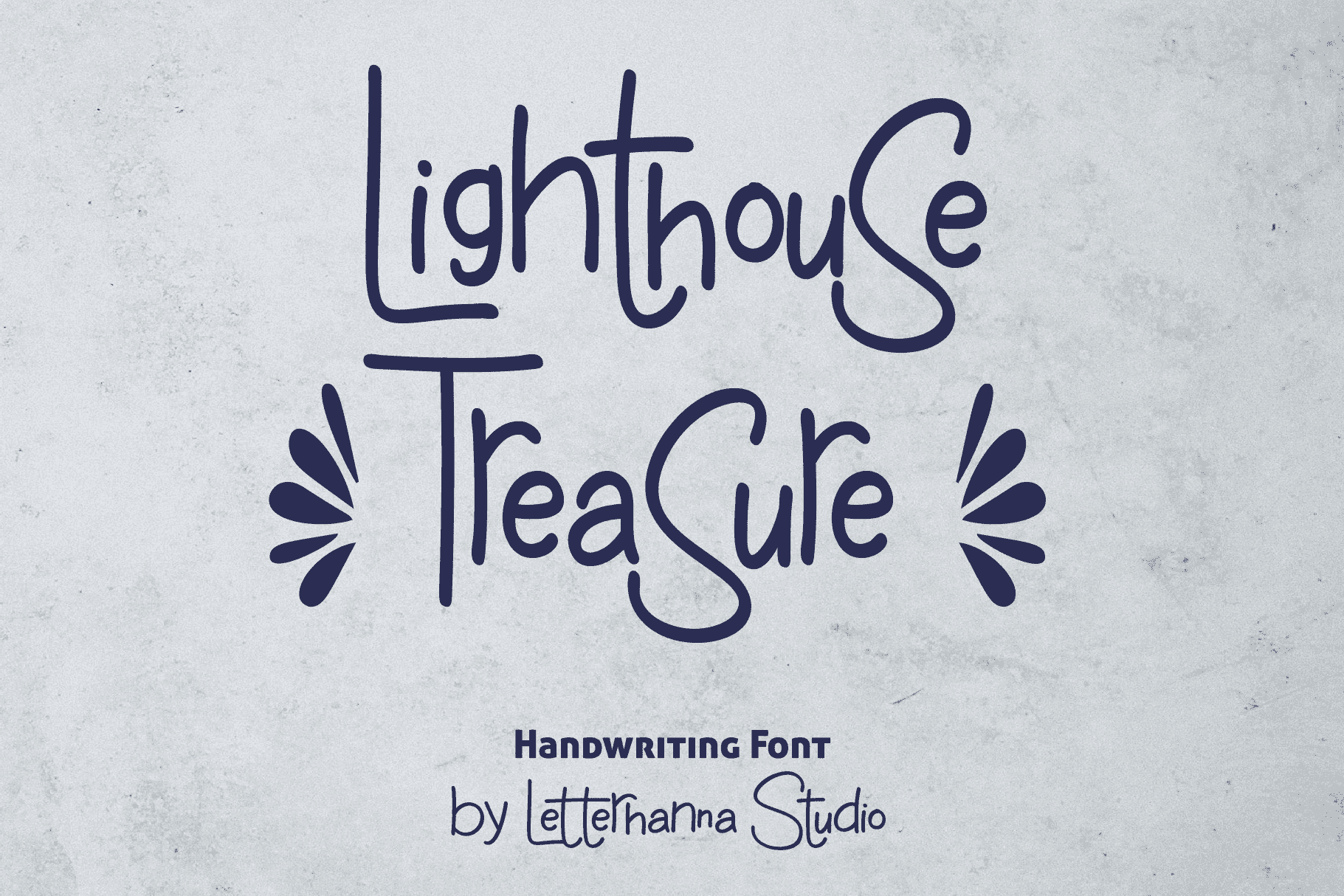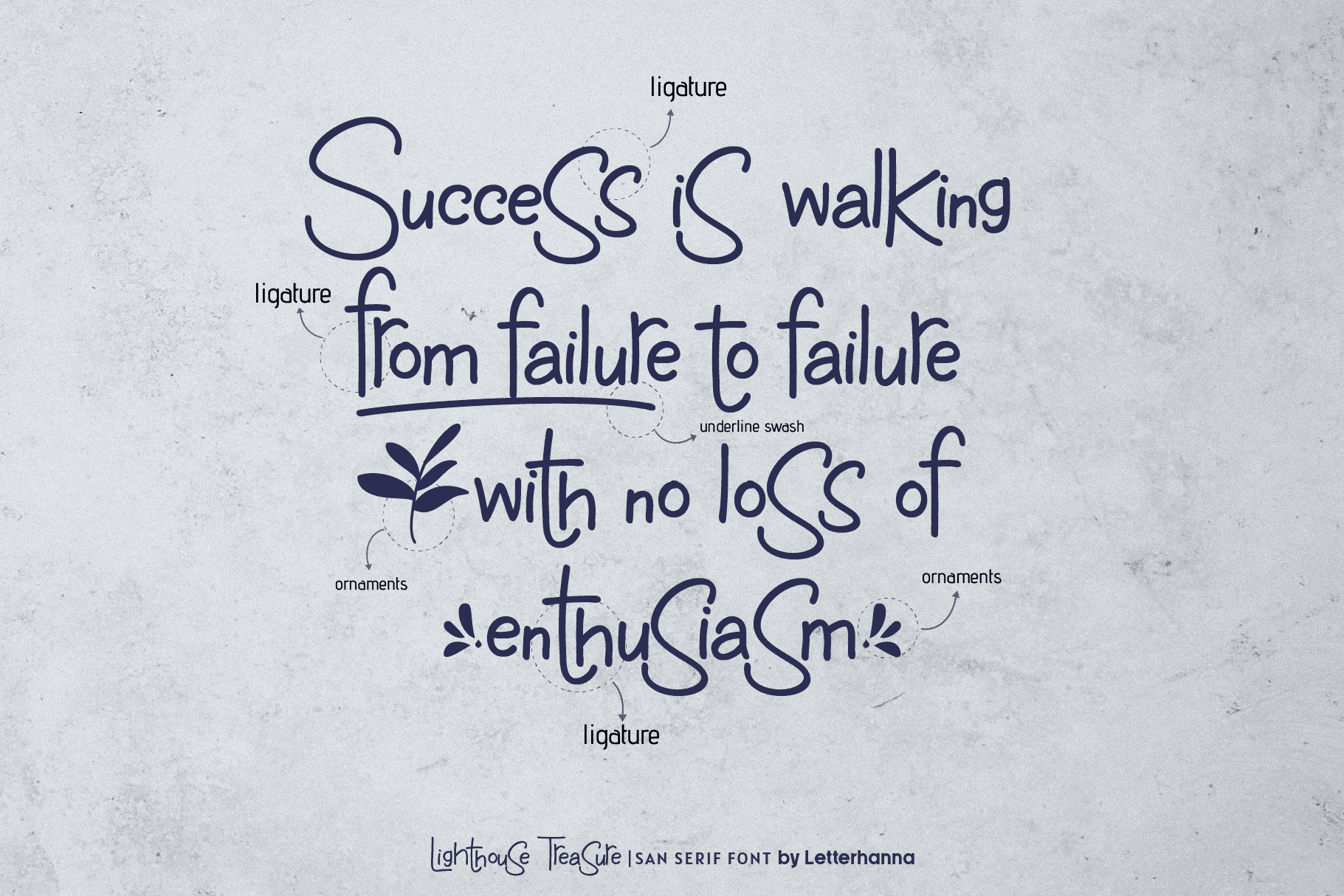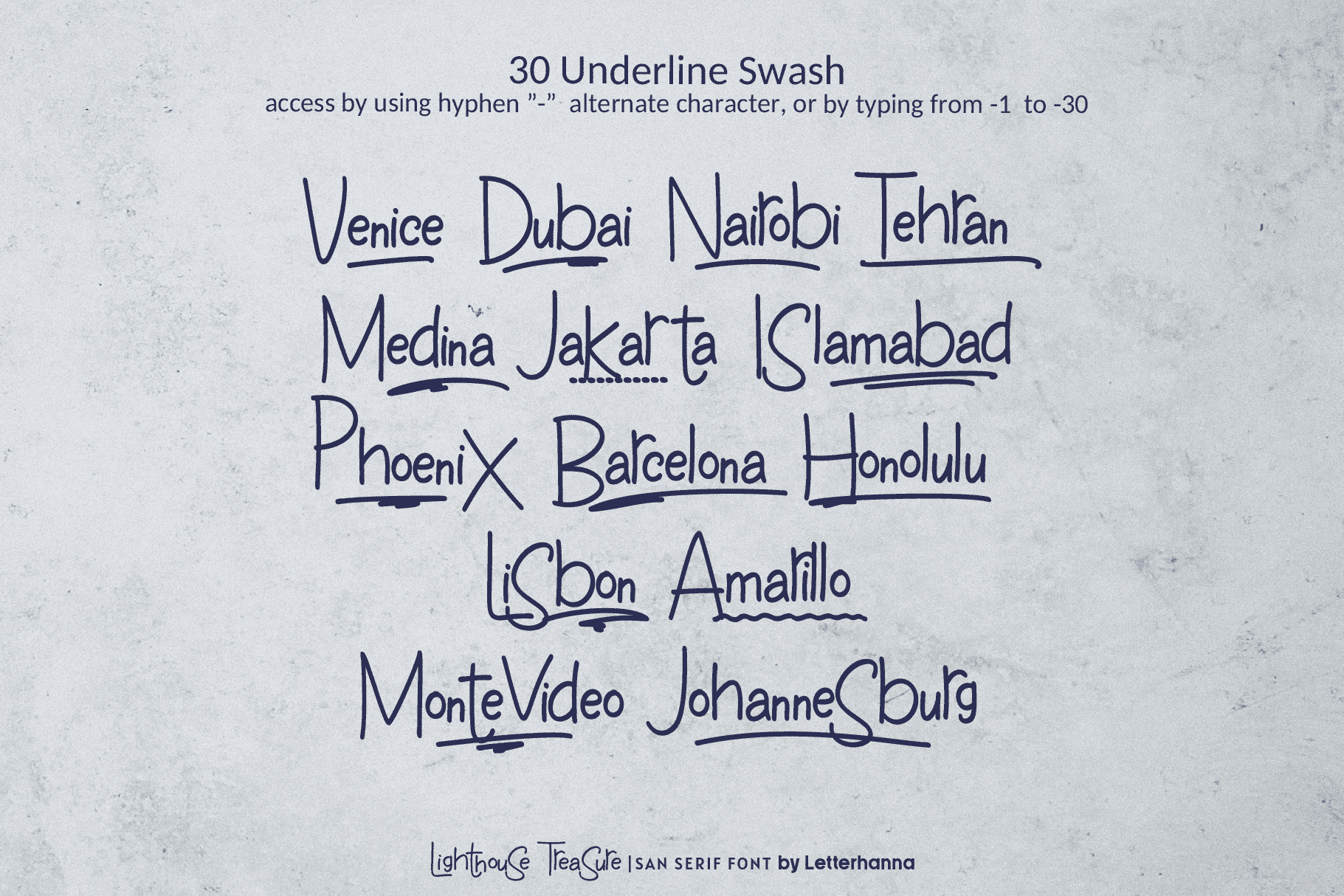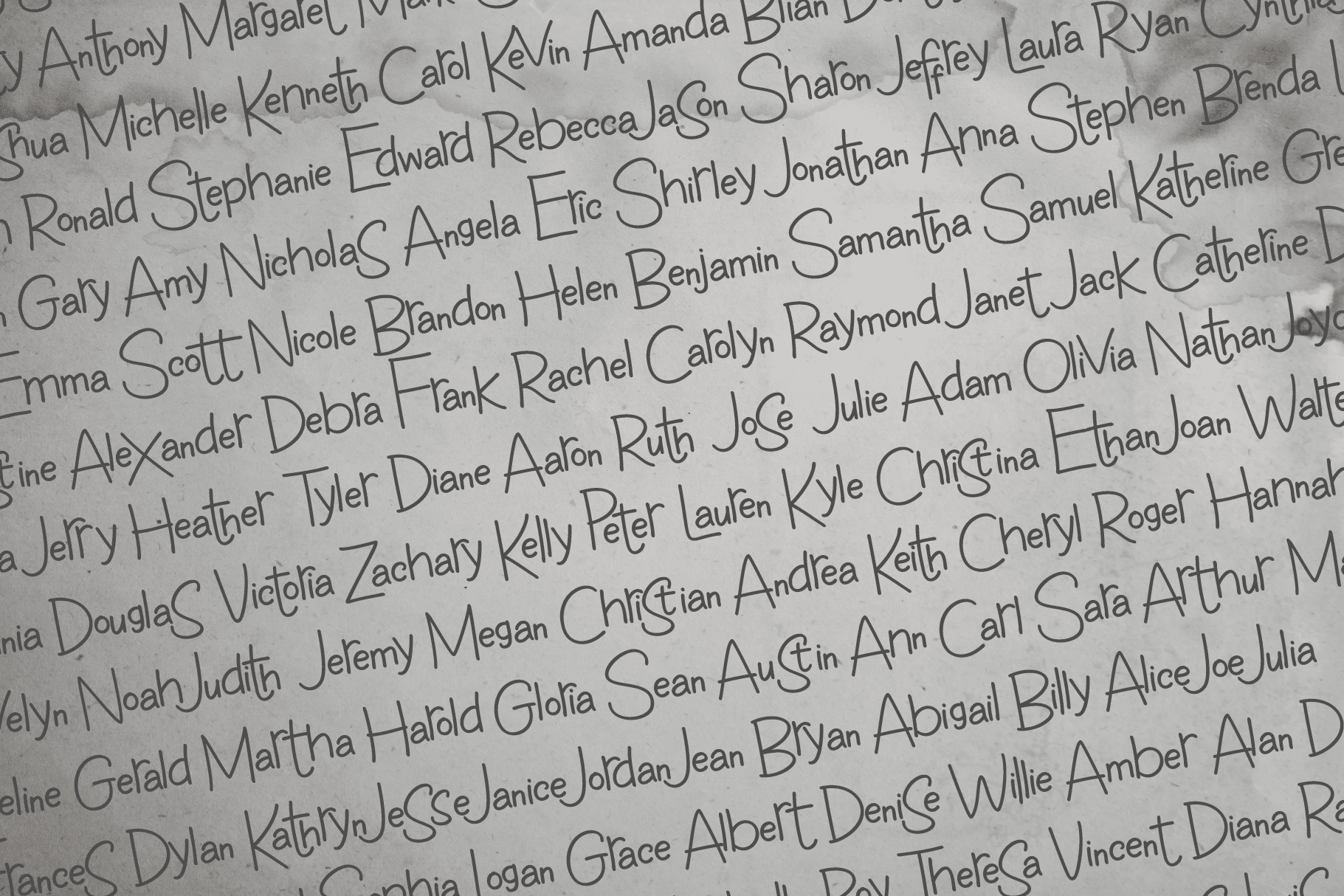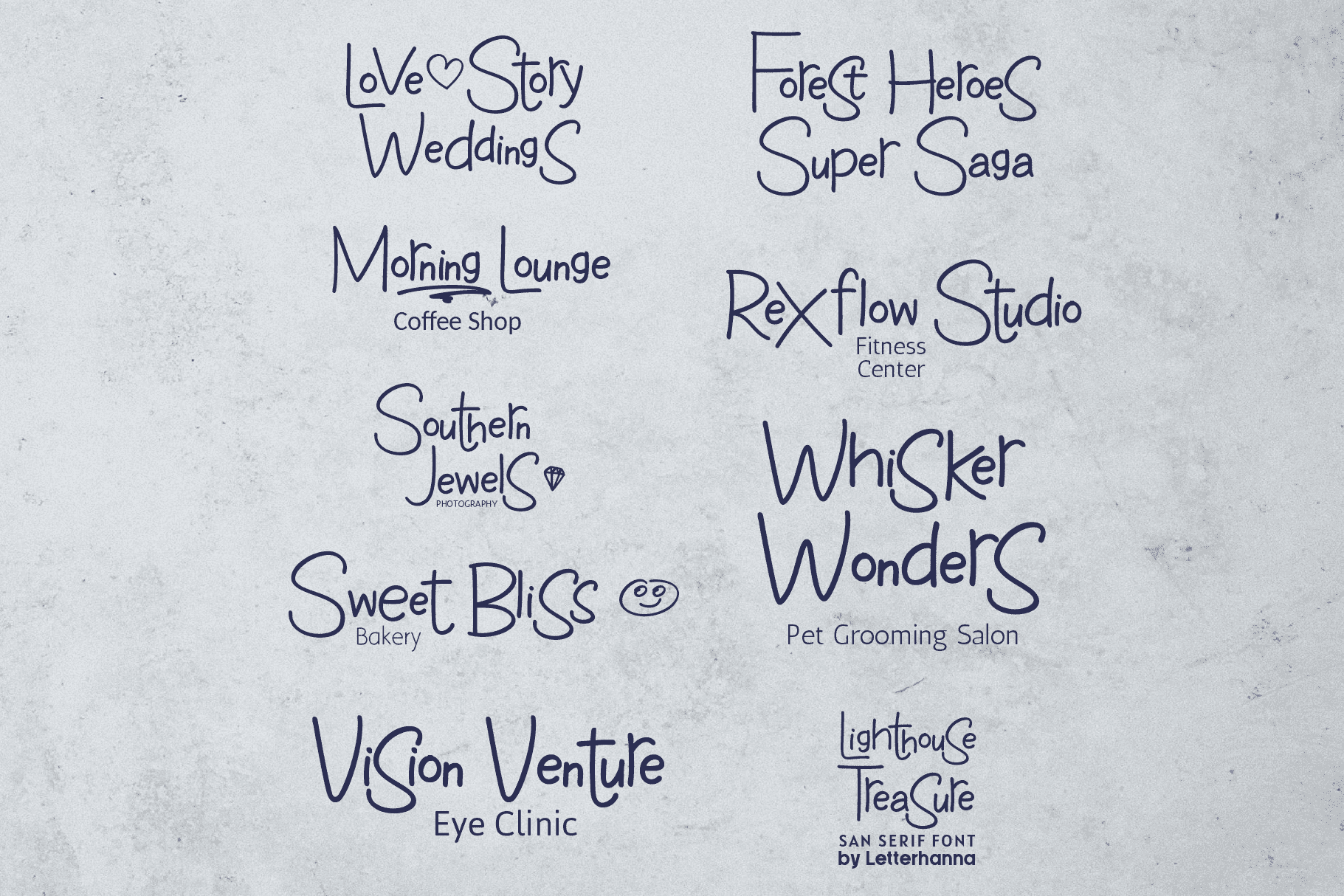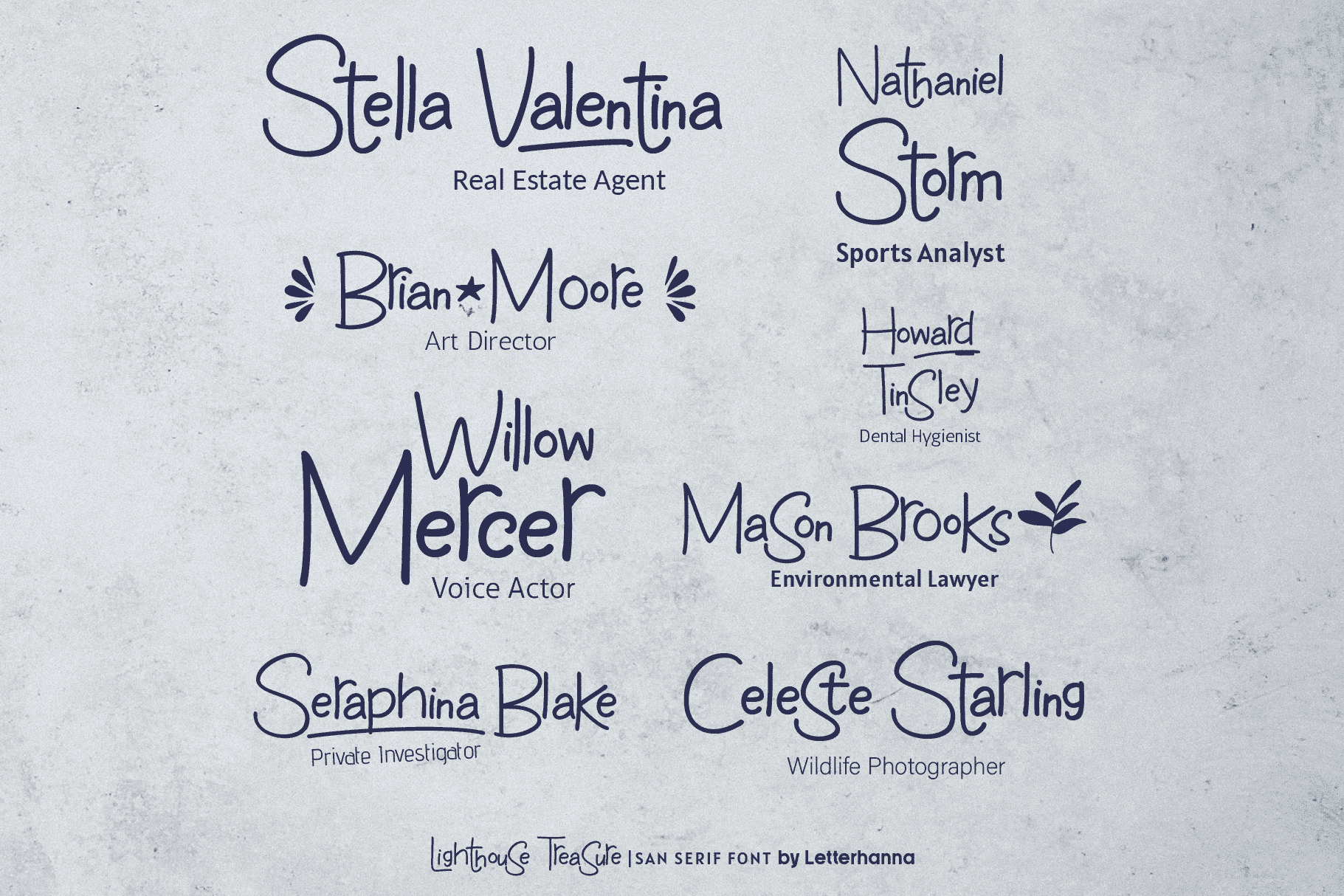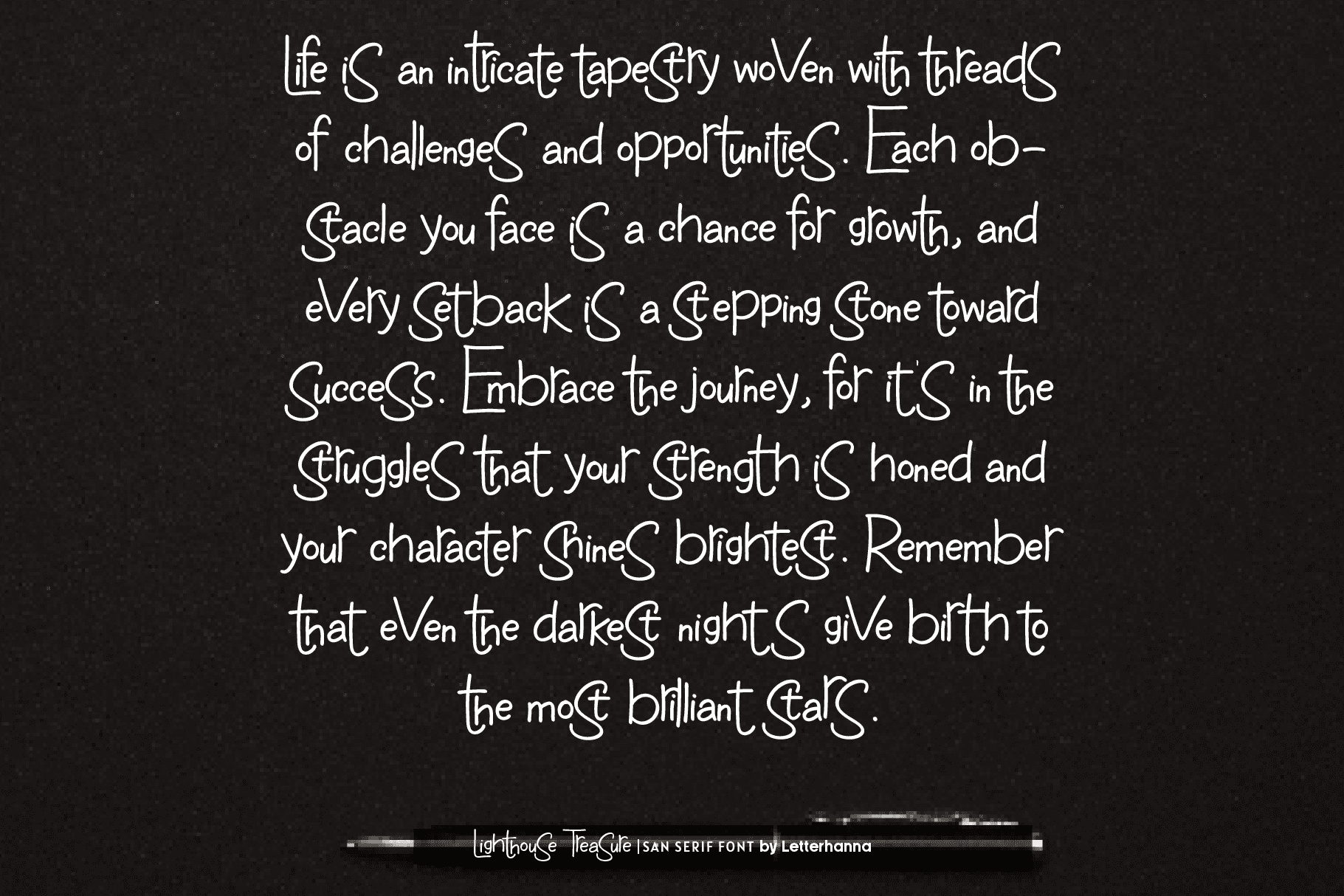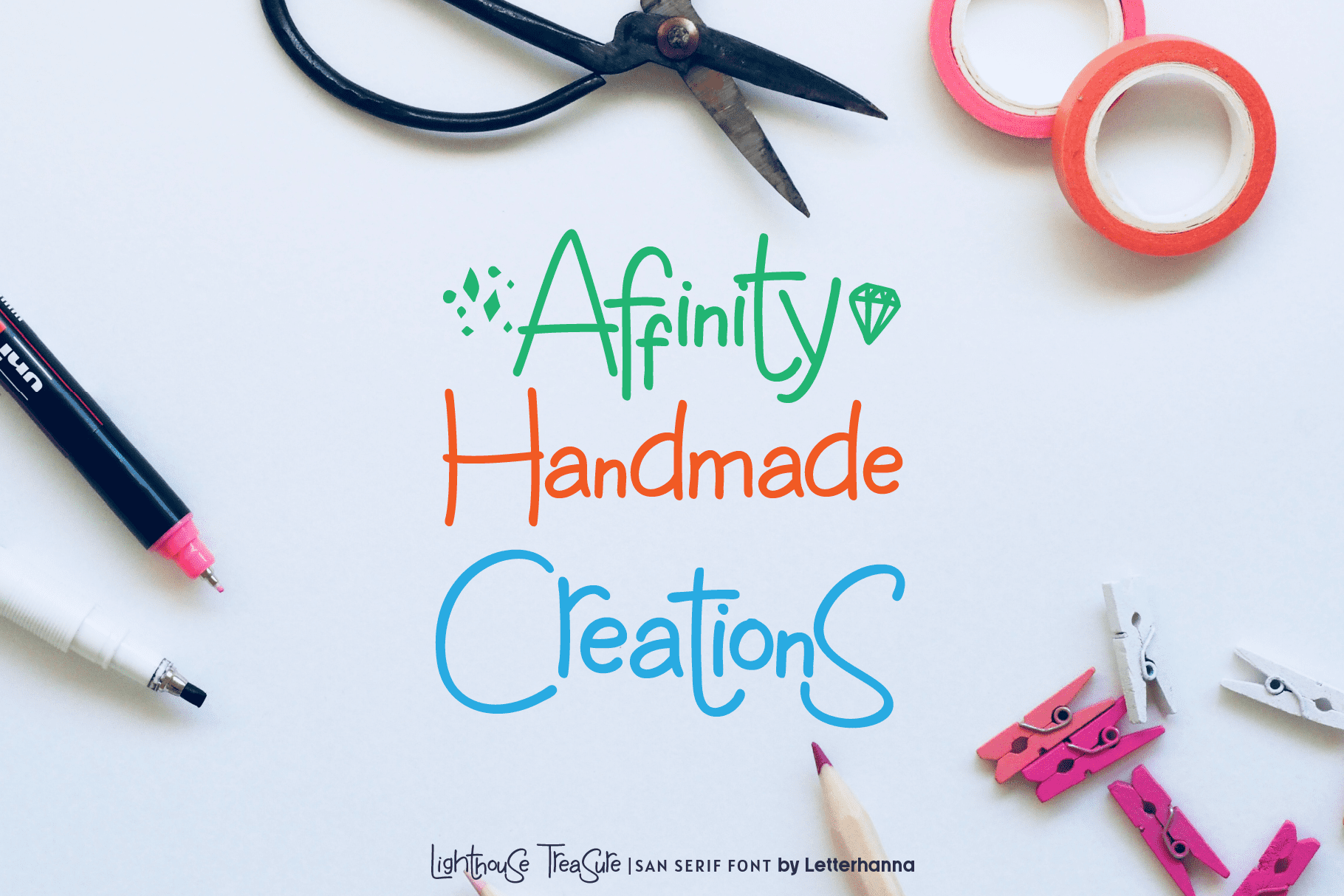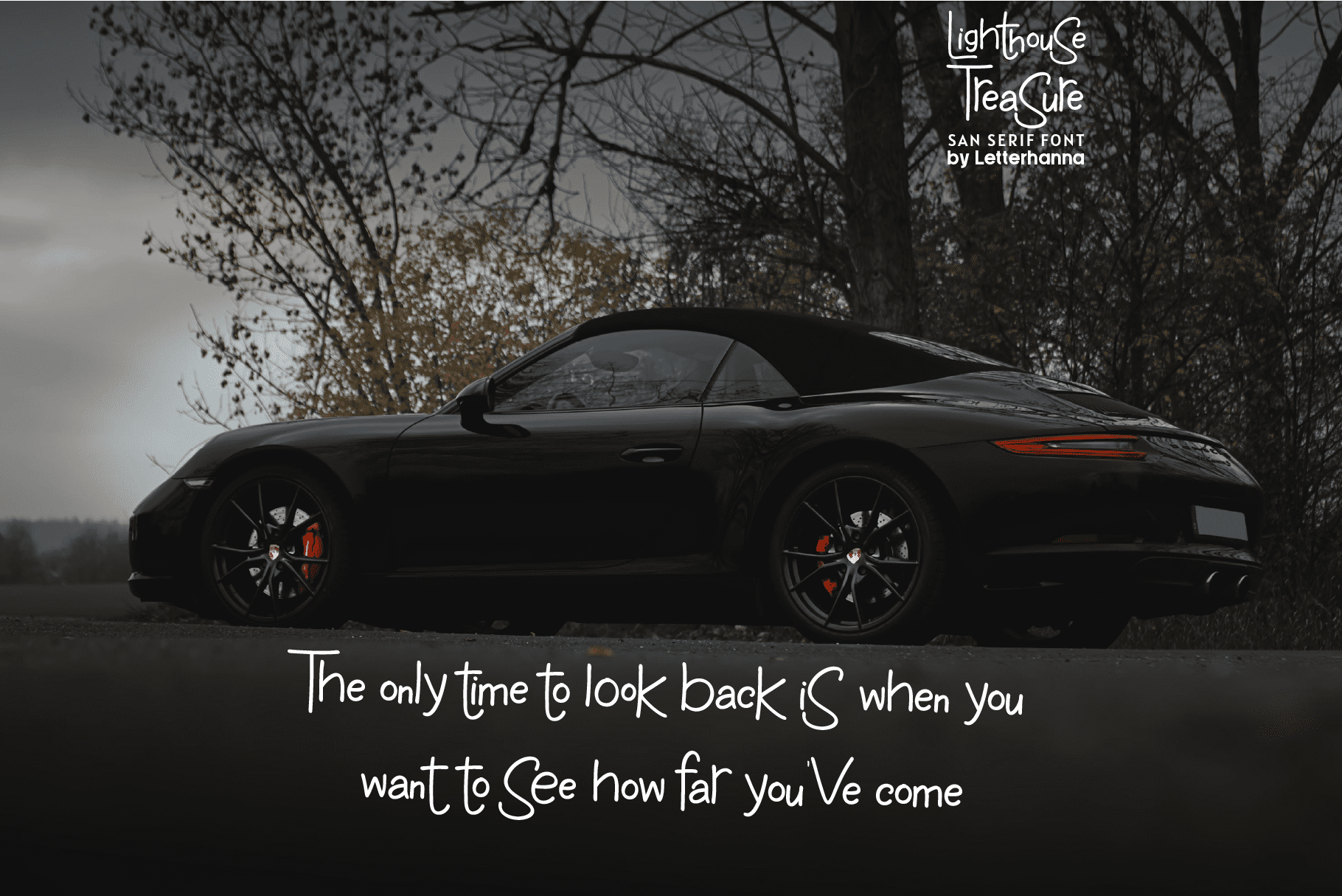
“Lighthouse Treasure” is an enchanting handwritten sans-serif font designed with a playful and informal touch, making it an ideal choice for projects with a kids’ theme. This font combines the relaxed charm of informal handwriting with a touch of whimsy, perfect for capturing the imagination of young audiences. Whether you’re working on children’s book covers, playful posters, or vibrant educational materials, “Lighthouse Treasure” adds a sense of fun and approachability to your designs. With its friendly and casual style, this font is sure to delight and engage children while conveying a sense of creativity and adventure.
Lighthouse Treasure Font was created to look as close to a natural handwritten as possible by including over 36 natural-looking opentype ligatures. There are also underline swashes included and lot more ornaments, arrow, scribbles, etc.
Ornaments can be access by type at symbol “at” then followed by number 1 to 26, for example type @4 or @13 etc to get various different ornaments.
FEATURES
– Uppercase and Lowercase letters
– Numbering and Punctuations
– Multilingual Support
– Ligatures
– Underline swashes
– Ornaments
– Easy access swash just by using ligatures